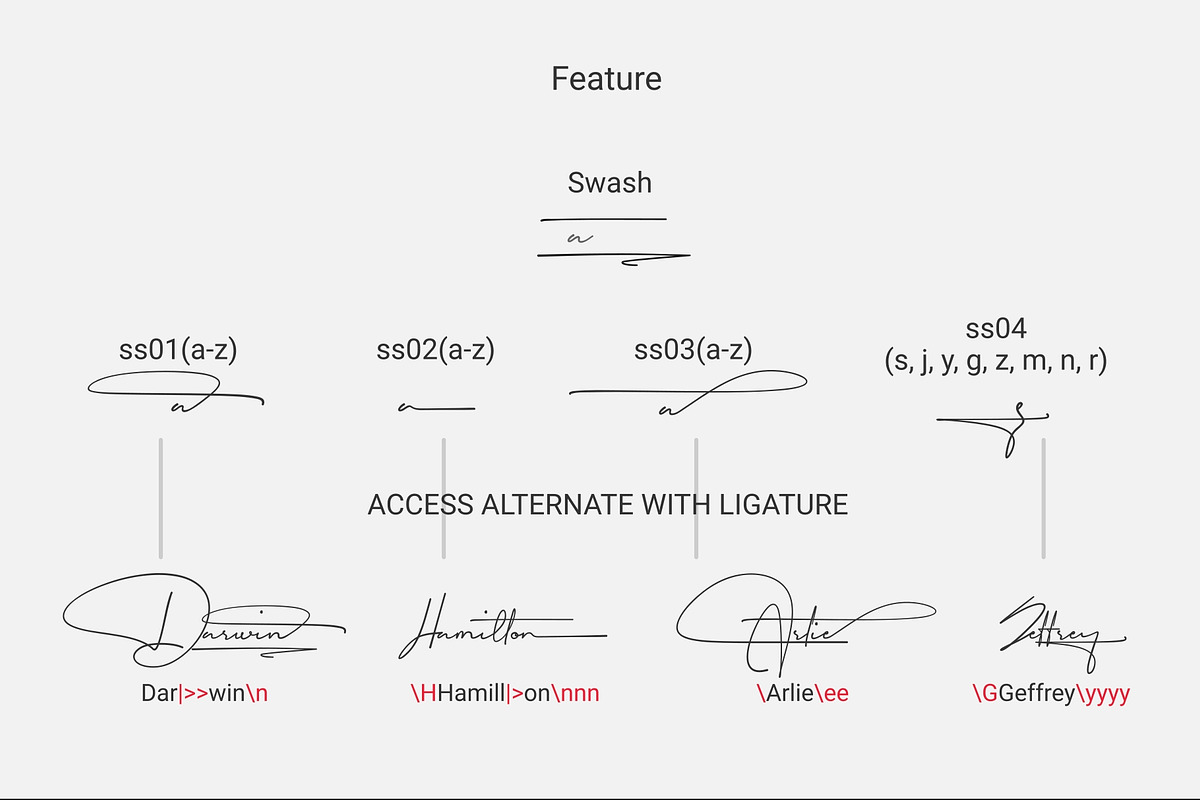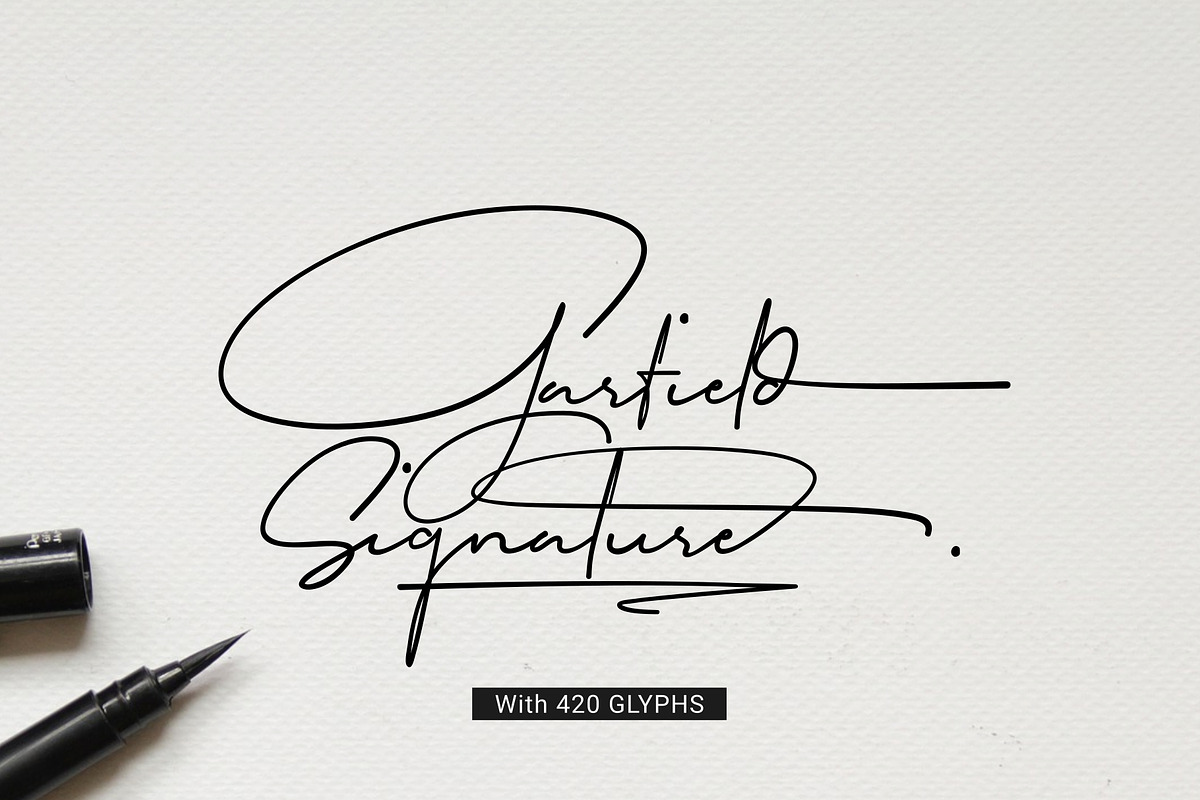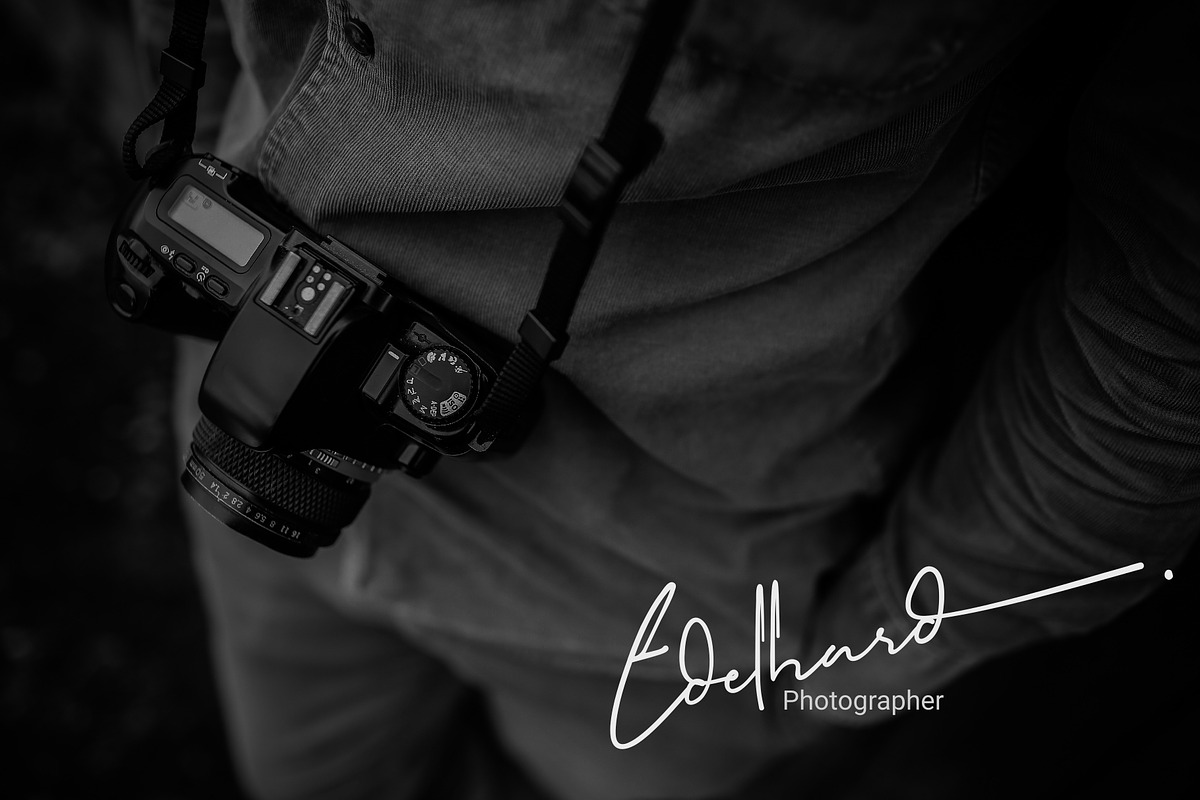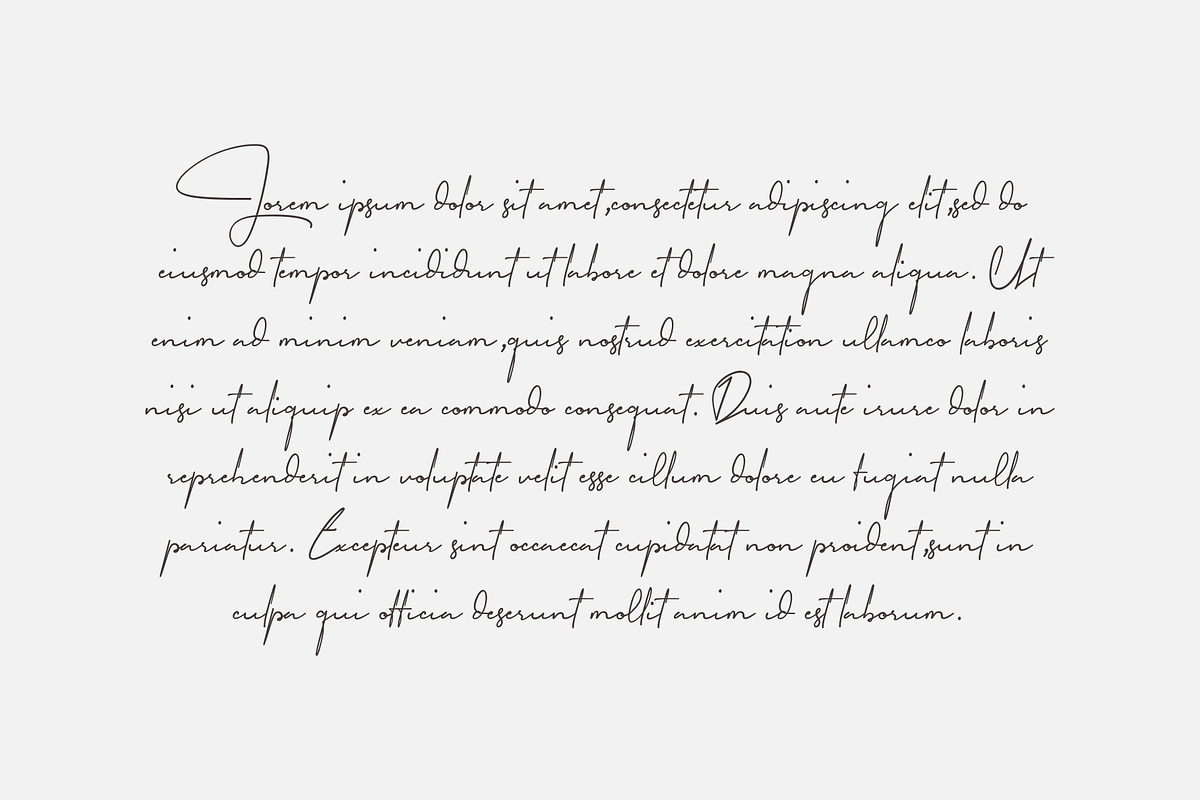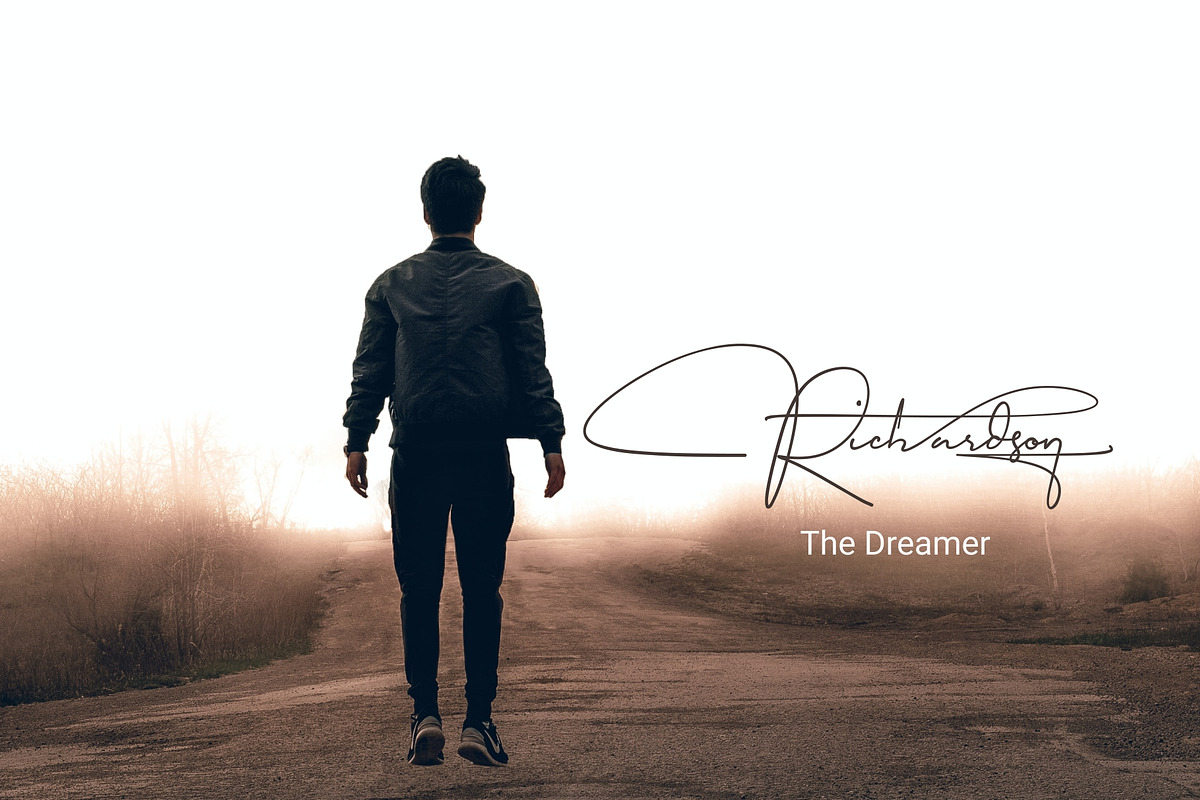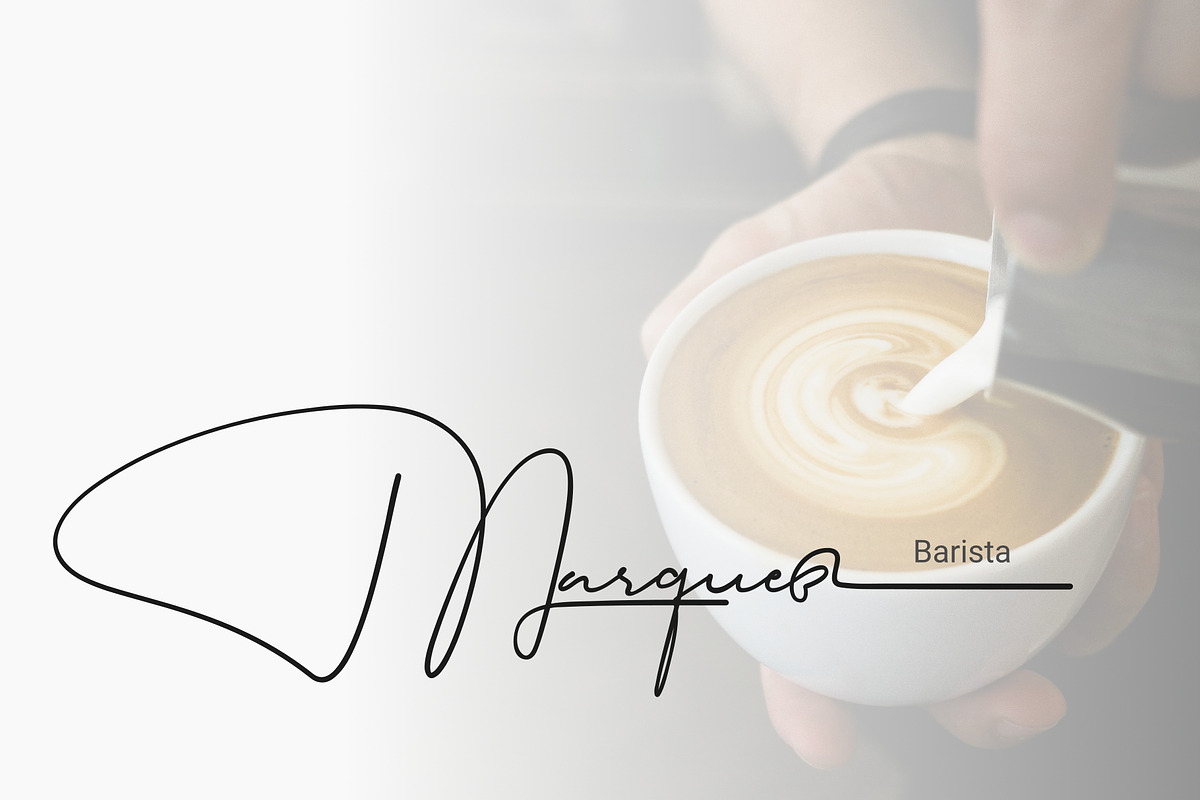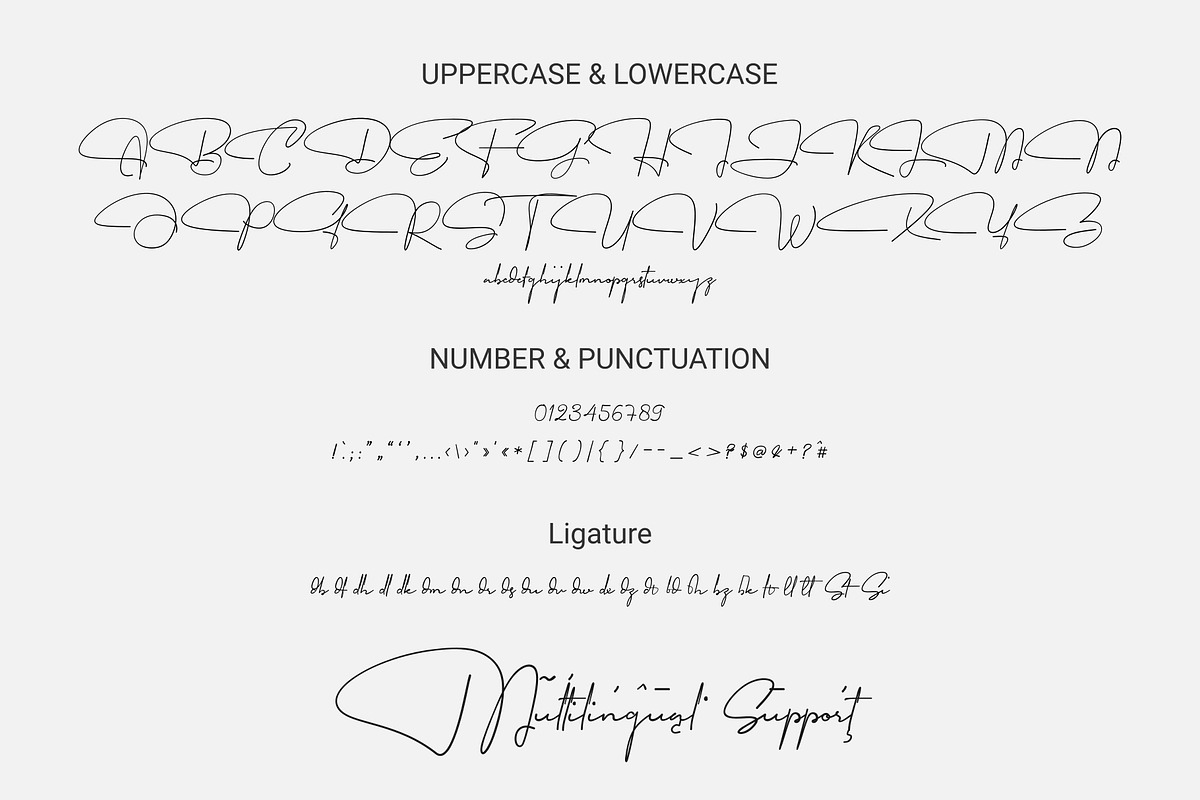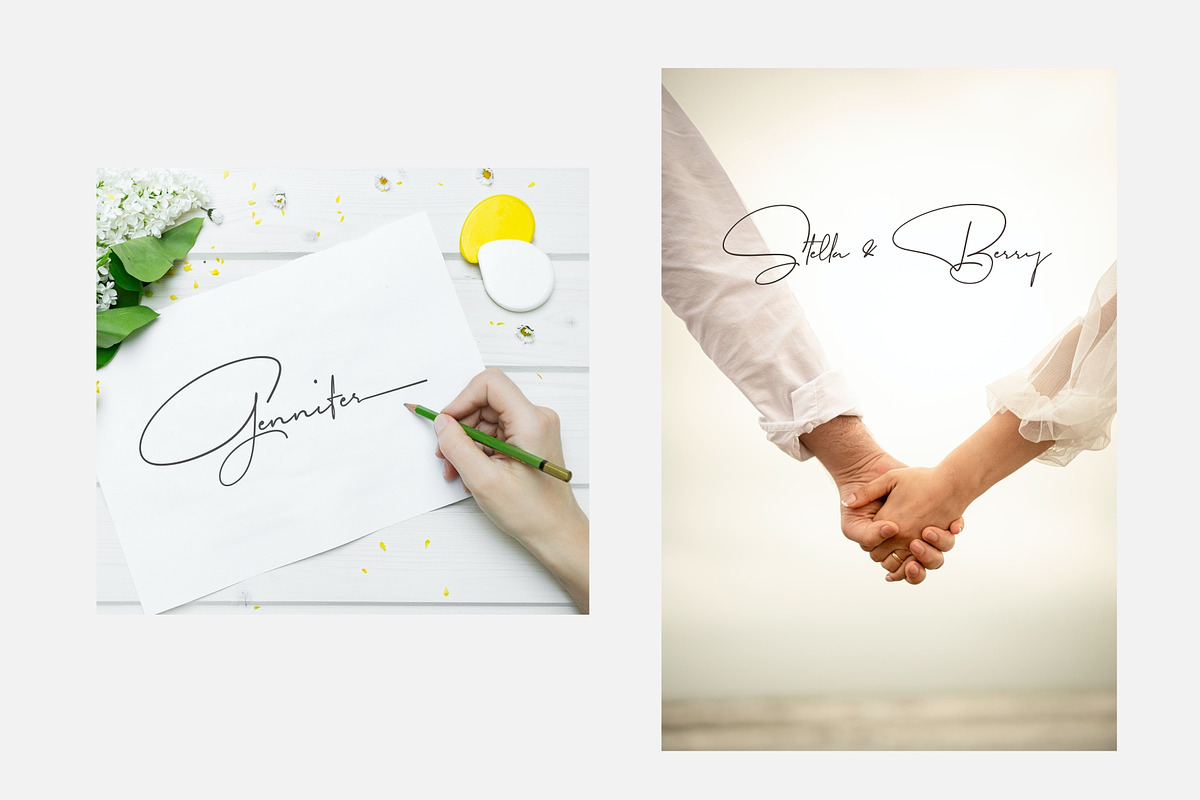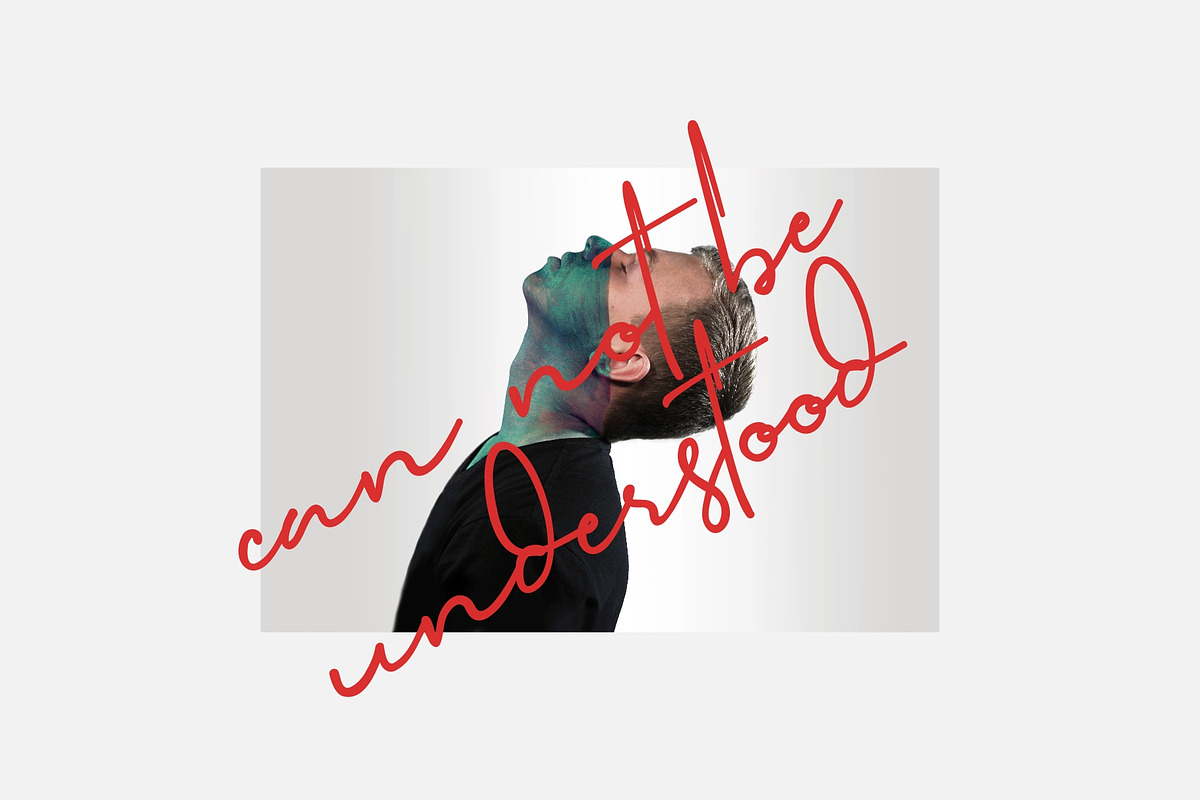
Garfield Signature Font
Garfield is a natural signature font, carefully crafted to function like human handwriting. with more than 420 glyphs that can be used for business purposes, branding and logos, signatures, product packaging, titles, body text, invitations, stationary, advertisements, and more.
Ligature Alternate Stylistic Multilingual Support Uppercase and Lowercase letters Numbering and Punctuations